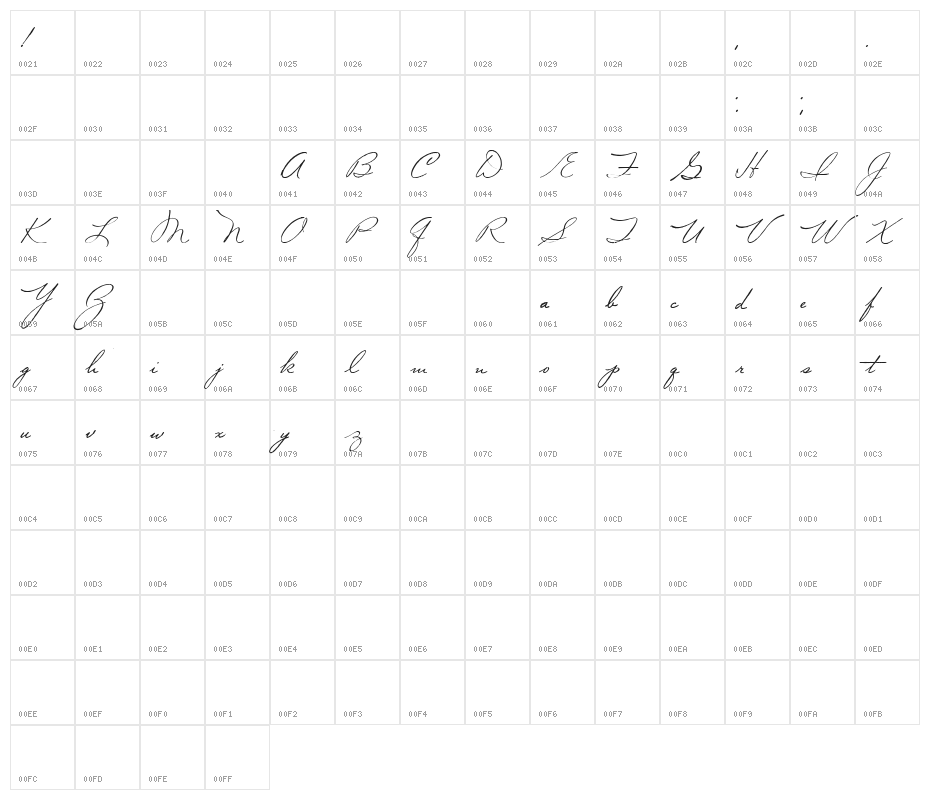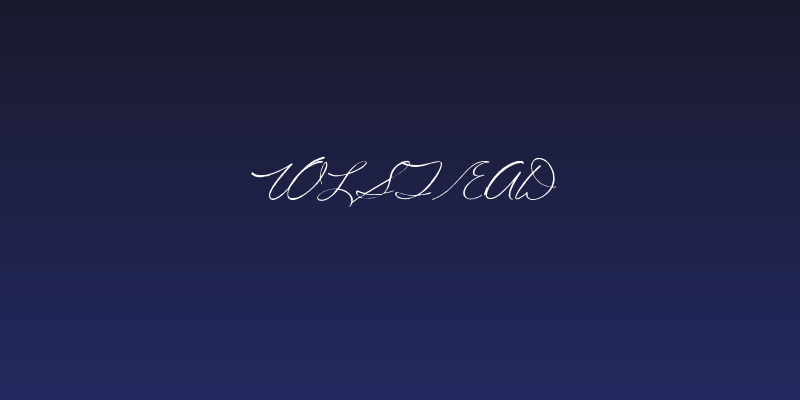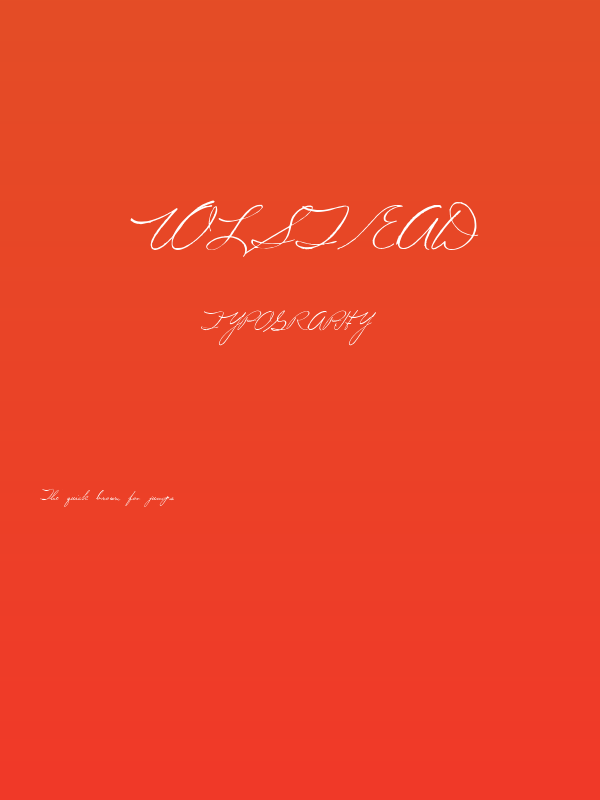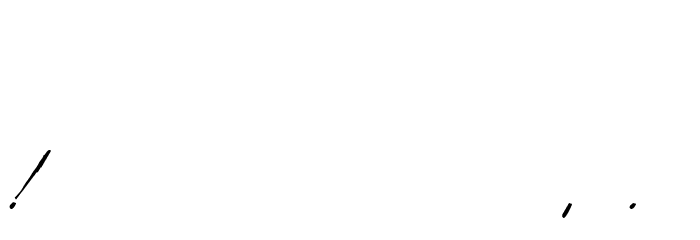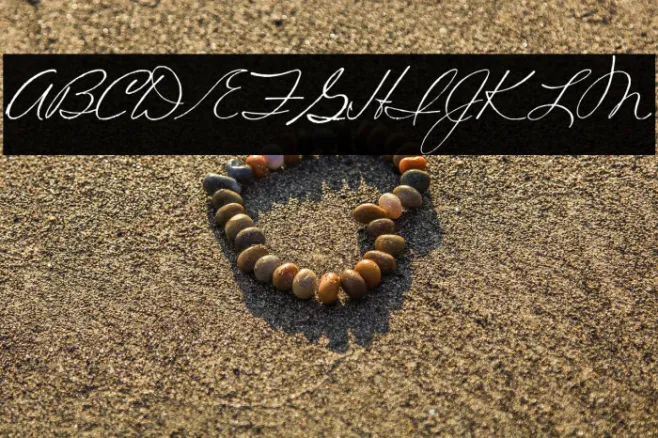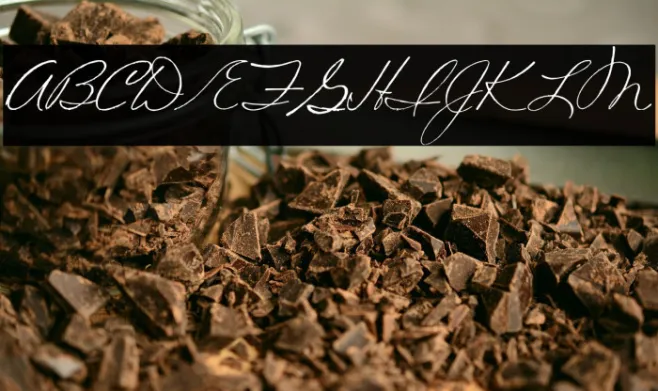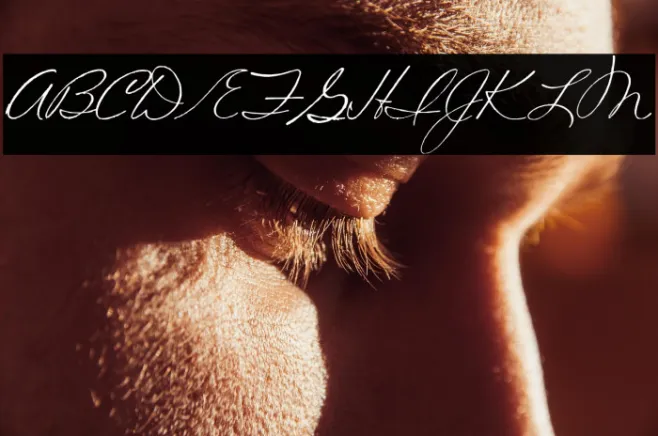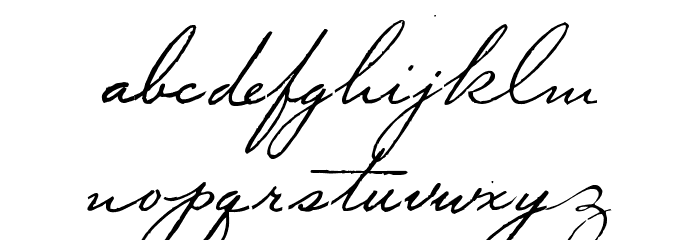
Volstead Font
Volstead Description
This elegant script font features flowing, cursive letters with a classic and sophisticated style. The uppercase letters are ornate and highly decorative, with intricate loops and flourishes that add a sense of grandeur. The lowercase letters maintain a consistent flow, offering a smooth and connected appearance that mimics natural handwriting. The font's overall design is reminiscent of vintage calligraphy, making it suitable for formal and elegant designs. The special characters, such as the exclamation mark and period, are crafted with the same attention to detail, ensuring a cohesive look across all elements.
| Proposed Projects | Ideal for wedding invitations, elegant branding, luxury product packaging, and formal event programs. |